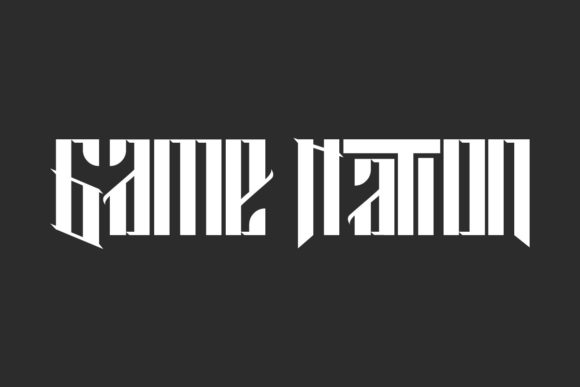
Voyage into the depths of grandeur and audacity with Game Nation Font, a creation of vintype that will captivate your designs with its bold and assertive strokes. Immerse yourself in the realm of blackletter artistry, where every character exudes a timeless charm, reminiscent of ancient manuscripts and vintage signage.
Step into a world where your designs transcend the ordinary, where strength and elegance collide. Unleash the power of Game Nation Font, a masterpiece crafted for those who dare to stand out. Let your logos, branding, and labels radiate confidence, leaving an indelible mark on the minds of your audience.
With Game Nation Font, complexity and simplicity intertwine, creating a visual symphony that commands attention. Its thick, robust letterforms convey a sense of stability and permanence, while the intricate details and swashes add a touch of playfulness and intrigue. Embrace the versatility of this font, allowing it to seamlessly adapt to a myriad of creative endeavors.
Transport yourself to an era of adventure and discovery, where Game Nation Font becomes your trusty companion. Its PUA encoding grants you effortless access to a treasure trove of glyphs and swashes, empowering you to unleash your creativity and weave enchanting tales through your designs.
Harness the power of Game Nation Font and embark on a journey of visual storytelling. Captivate your audience with designs that resonate with strength, sophistication, and a hint of nostalgia. Let your creations transcend the boundaries of time, leaving a lasting legacy of visual excellence.